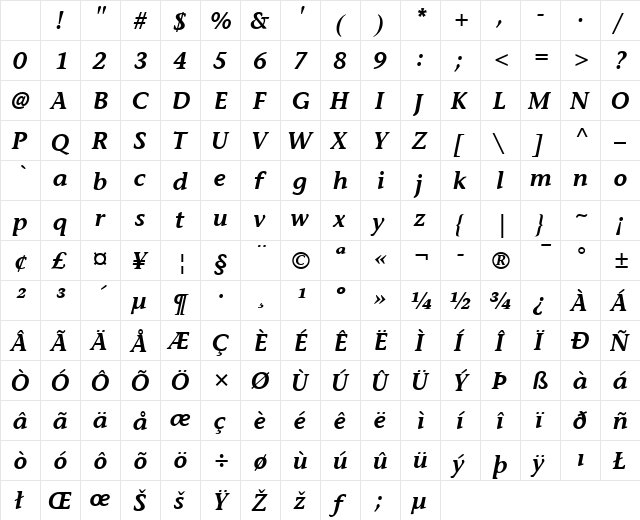
Complete StoneInformal LT Bold Italic glyph index. Displaying only characters natively supported by StoneInformal LT Bold Italic font.
StoneInformal LT is a composed and adaptable typeface that performs quietly and consistently across a wide range of design contexts. The slanted form adds forward momentum and visual energy. Its bold stroke weight gives it real presence on the page.
Pro Tip: Use StoneInformal LT for emphasis, pull quotes, and subheadings where its slanted energy can add rhythm to the layout.